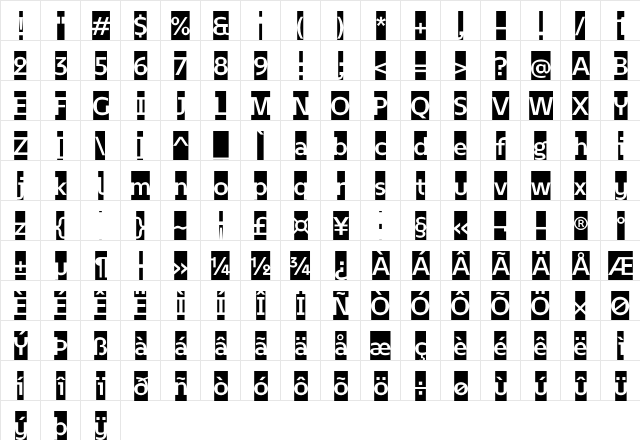
February 2 Initials
Design Context for February 2 Typeface
February 2 is a composed and adaptable typeface that performs quietly and consistently across a wide range of design contexts.